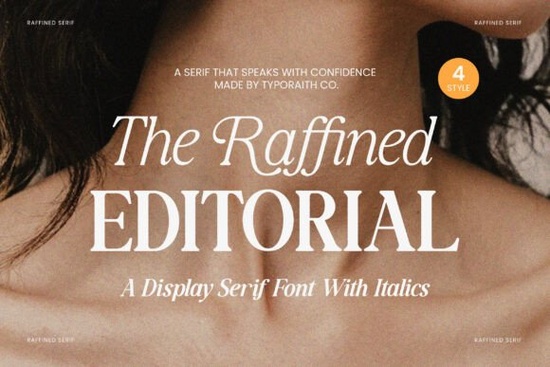
If you're looking for a serif font that balances classic elegance with modern flair, Raffined Font is worth a closer look. Designed for creatives who value both sophistication and versatility, this display serif brings refined details like sharp serifs, graceful curves, and dramatic contrast to everything from logos to wedding invitations.
Raffined Serif stands out because it doesn’t just mimic vintage typefaces; it reinterprets them for today’s design needs. The strong vertical strokes paired with delicate hairlines give it presence without feeling dated. Whether you’re designing a luxury product label or crafting social media graphics for a boutique brand, the font adds polish without overwhelming your layout.
What kinds of projects work best with Raffined Font?
This font shines in contexts where visual impact and perceived quality matter. Think:
- Fashion and beauty branding – Logos, hang tags, and campaign headlines benefit from its confident lines.
- Editorial layouts – Magazine covers, feature spreads, or blog headers gain instant credibility.
- Special event stationery – Wedding invites, anniversary programs, or upscale menus feel more intentional.
- Premium packaging – From skincare boxes to artisanal food labels, Raffined adds a touch of class.
- Social media visuals – Quotes, announcements, or product promos stand out with minimal effort.
Because it’s a display font, it’s best used at larger sizes. Avoid body text its high contrast and ornamental details lose clarity when scaled down.
How does Raffined compare to other modern serifs?
While many contemporary serifs lean either ultra-minimalist or heavily decorative, Raffined finds a middle ground. It has personality but remains legible and adaptable. If you like the structured elegance of Gibs Font, you’ll appreciate Raffined’s similar balance of geometry and grace. Or if you’ve used Wolmer Font for editorial work, Raffined offers a bolder, more expressive alternative with stronger contrast.
For those building a versatile toolkit, consider pairing Raffined with simpler sans-serifs for contrast, or explore curated collections like the Modern Serif Bundle to expand your options without sacrificing cohesion.
Does it include italic styles and special characters?
Yes and this is where Raffined really delivers. The italic variant isn’t just a slanted version of the regular; it features unique letterforms with fluid, calligraphic energy. This makes it ideal for emphasis, subheadings, or adding dynamic rhythm to a layout.
The font also supports an extended character set, including ligatures, stylistic alternates, and multilingual glyphs (covering Western European languages). These extras let you fine-tune your typography for authenticity and visual harmony, especially in high-end print projects.
Who should use this font?
Raffined Font is especially useful for:
- Small business owners creating their own branding on a budget no need to hire a typographer to get a premium look.
- Print-on-demand sellers designing mugs, posters, or apparel with elegant quotes or monograms.
- DIY crafters making personalized gifts like framed art or custom greeting cards.
- Freelance designers who need a go-to serif that feels distinctive but still client-friendly.
Before you download: a quick checklist
- Use it big – Best for headlines, logos, and short phrases, not paragraphs.
- Pair thoughtfully – Combine with clean, neutral sans-serifs (like Montserrat or Lato) to avoid visual clutter.
- Test readability – Especially in italics or at smaller display sizes (e.g., Instagram stories).
- Check language support – Confirm your needed characters are included if working beyond English.
If you’re ready to add timeless sophistication to your next project, Raffined Font offers a reliable blend of beauty and functionality without requiring advanced typography skills.